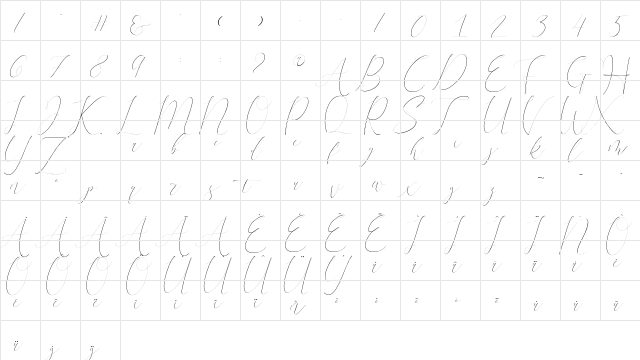
terranika Regular Font Preview
terranika Regular
terranika Regular Font Details
| Foundry | thirtypath |
| Designer | thirtypath |
Design Context for terranika Typeface
terranika is a composed and adaptable typeface that performs quietly and consistently across a wide range of design contexts.